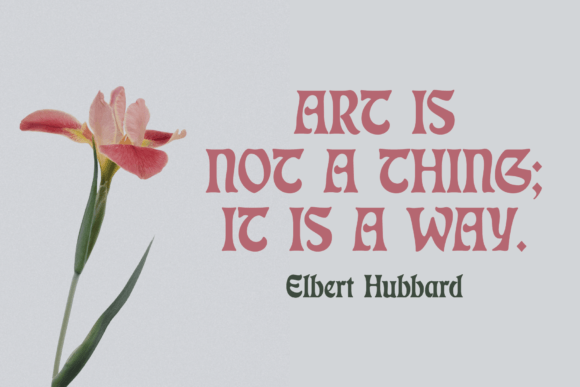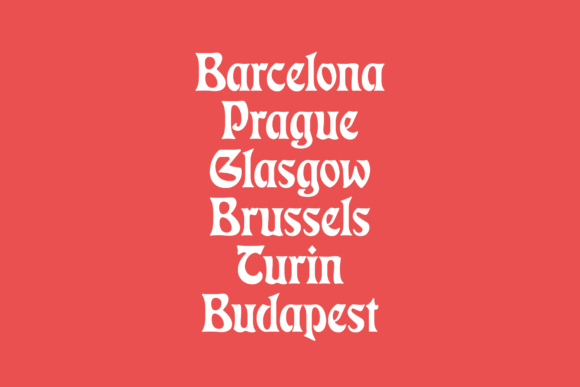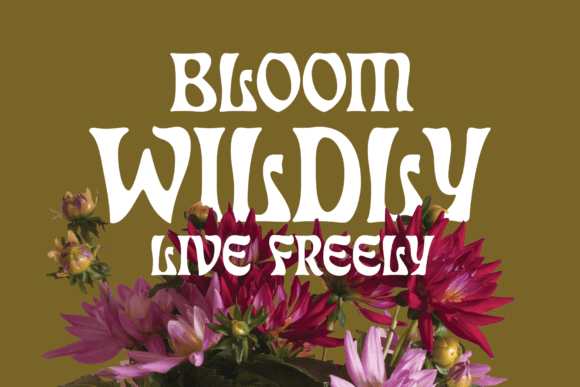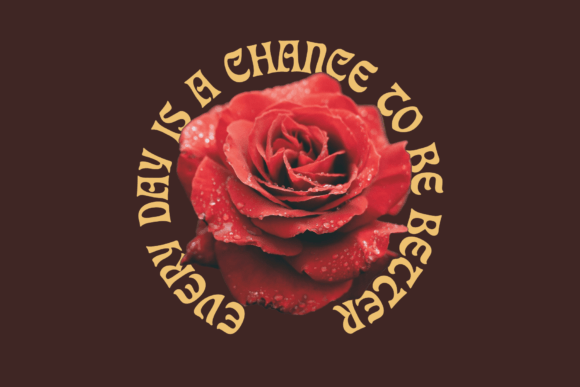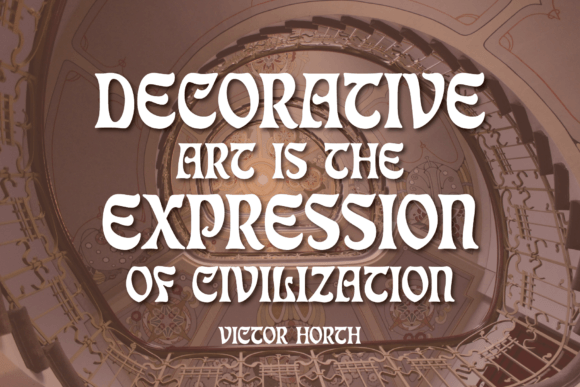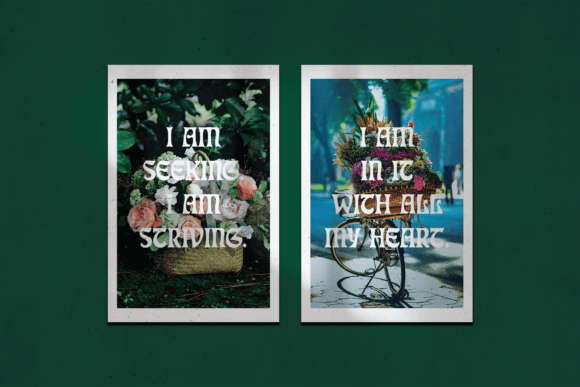
The Elegance of Eckmann Moderne Font: A Designer’s Delight
I still remember the design project that led me to discover the Eckmann Moderne Font. I was working on a branding project for a luxury client, and I needed a font that exuded elegance and sophistication. After hours of searching, I stumbled upon this beautiful Art Nouveau font, and it instantly became the perfect fit. In this article, I’ll share my experience with Eckmann Moderne Font, its features, and how to make the most of it in your designs.
A Brief Backstory: The Inspiration Behind Eckmann Moderne
The Eckmann Moderne Font is a meticulous type revival of the iconic Eckmann-Schrift typeface, originally designed by Otto Eckmann in the late 19th century. Eckmann, a German designer, was a prominent figure in the Art Nouveau movement, and his work continues to inspire designers today. The modern reinterpretation, Eckmann Moderne FD, retains the organic curves, flowing lines, and ornamental charm that defined the original, while introducing refinements for improved legibility and versatility in contemporary design contexts.
My Honest Review: What I Love and What I Don’t
- ✨ Elegant and sophisticated design, perfect for luxury brands and high-end projects
- ✅ Extensive OpenType features, including glyphs and stylistic alternates
- ✅ Suitable for both print and digital media
However, I did notice a few quirks:
- ⚠️ Some of the ornamental features can be overwhelming if overused
- 🤔 Limited use of bold weights, which can make it difficult for headlines
| What is the history behind Eckmann Moderne Font? | The Eckmann Moderne Font is a revival of the iconic Eckmann-Schrift typeface, originally designed by Otto Eckmann in the late 19th century. |
| Is Eckmann Moderne suitable for digital use? | Yes, Eckmann Moderne is optimized for both print and digital media, making it suitable for a wide range of design projects. |
| Are there any limitations to using Eckmann Moderne? | While Eckmann Moderne is a versatile font, it may not be suitable for very small font sizes or body text, due to its ornamental features. |